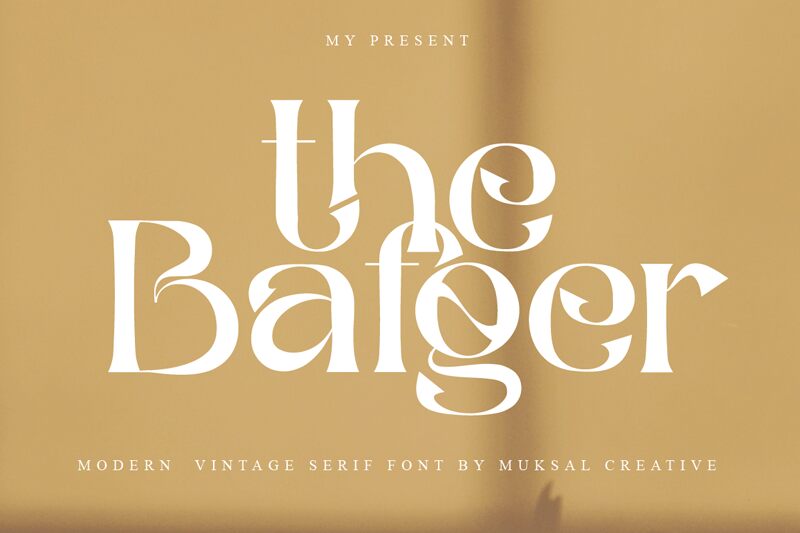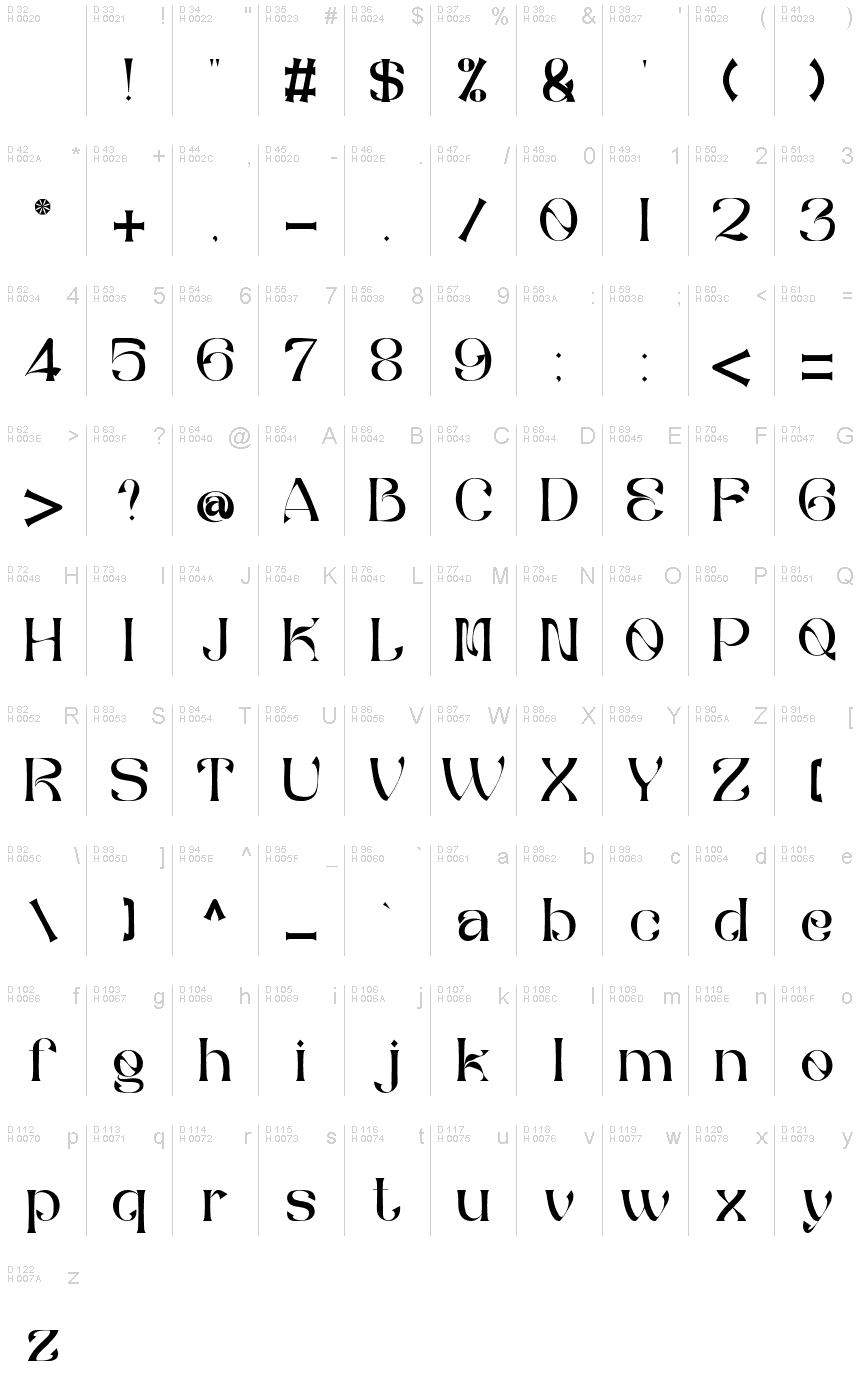
The Bafger
The Bafger is a dynamic display font designed by Muksal Creative in 2021. With a unique retro style, The Bafger is perfect for creating eye-catching posters, logos, and other digital artwork. Its bold visuals can also be used to bring vintage vibes to websites and products.